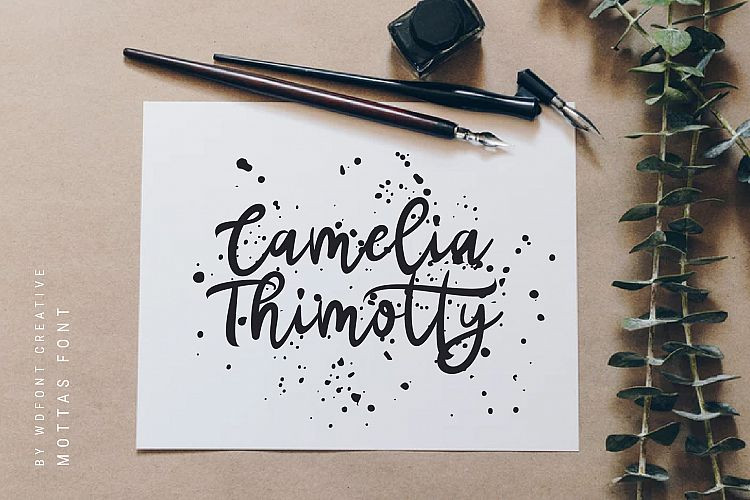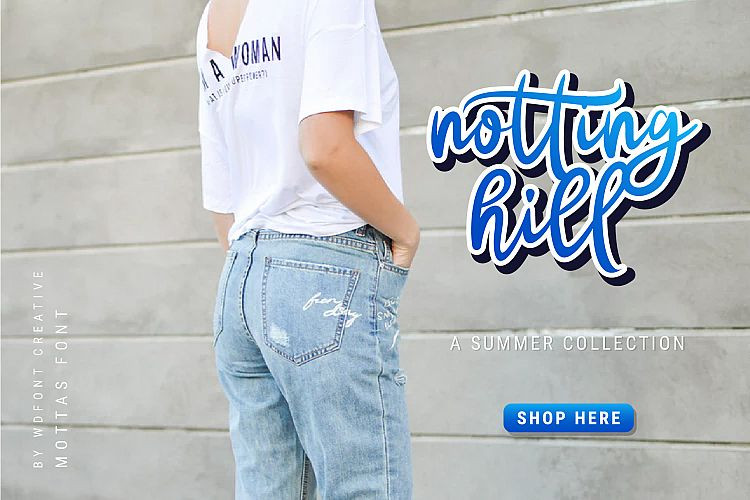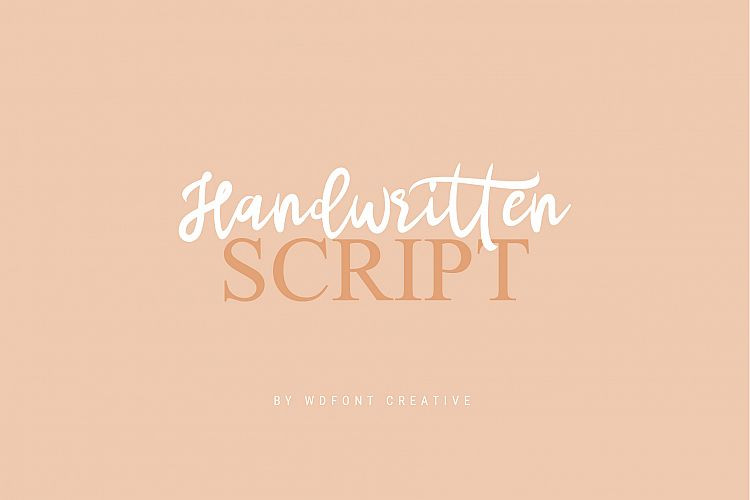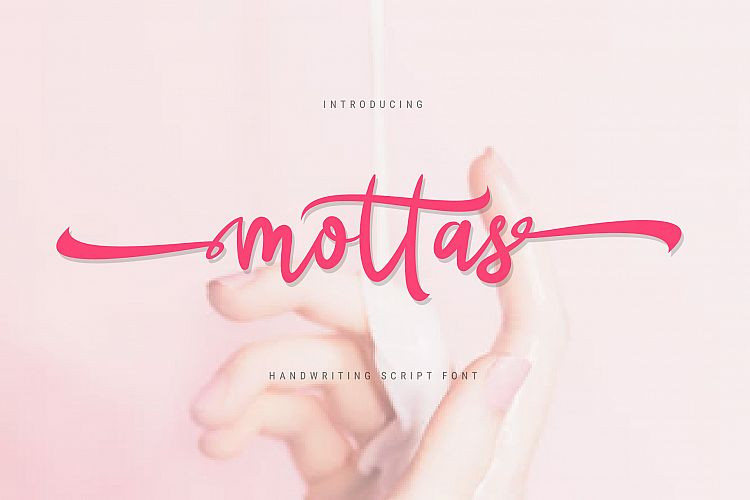
Mottas Script Font
This is a handwritten script font, this is handmade authentic font brush with stylish street lifestyle and looks like extreme sport style usage. Proudly presents latest product Mottas Font! It is designed and shared by wdfont. Mottas Script Font a new fresh & modern script with a handmade calligraphy style, decorative characters and a dancing baseline! So beautiful on invitation like greeting cards, branding materials, business cards, quotes, posters, and more!!